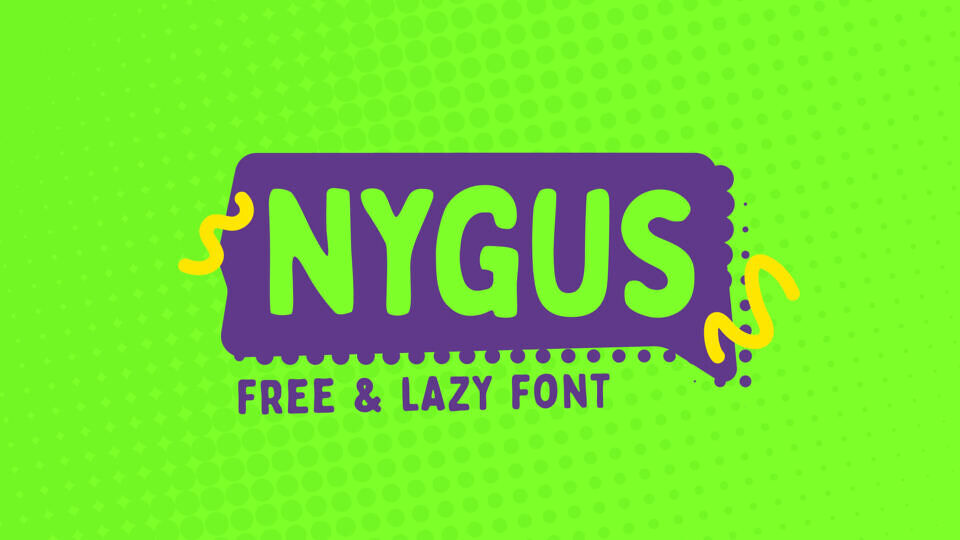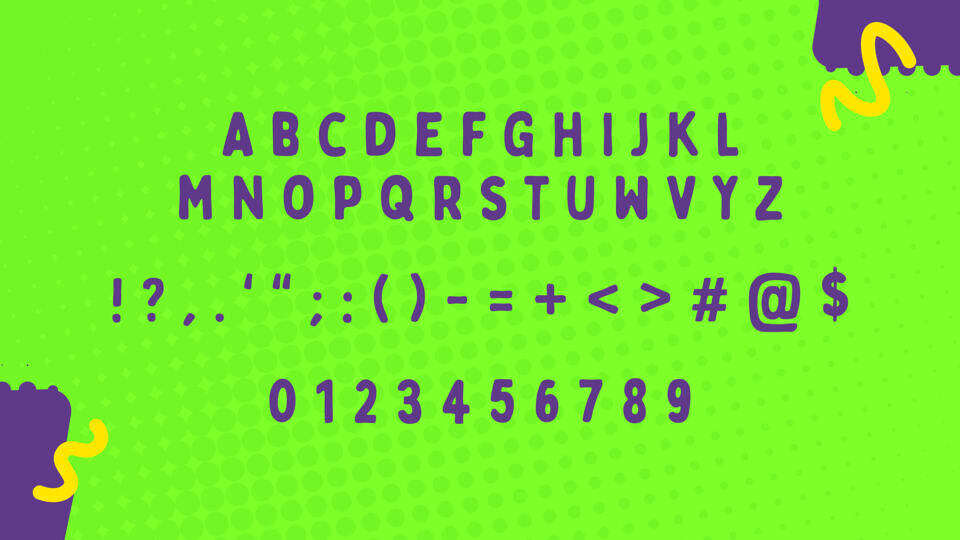
Nygus is a free, bold display typeface bursting with playful energy and lazy charm. Designed by Szymon Furjan, it features thick, rounded letters, perfect for quirky headlines, kids’ projects, posters, or casual branding.